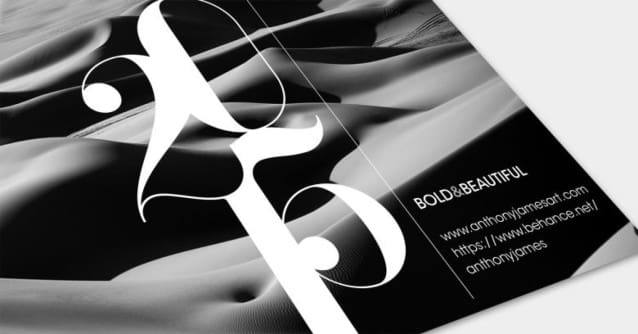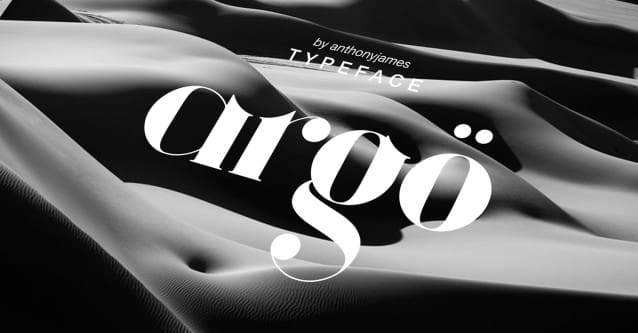
Argo Font
Argo is a typeface originally intended as an Art Deco display font, yet with some slight modifications. Horizontal lines were replaced by Medieval themed ascenders to increase fluidity and flexibility if users decided to alter it further.
Argo includes 180 characters including uppercase numbers, lowercase accents, ligatures and glyphs; additionally alternative letters featuring shorter descenders have also been included that are better suited for writing long lines of text.